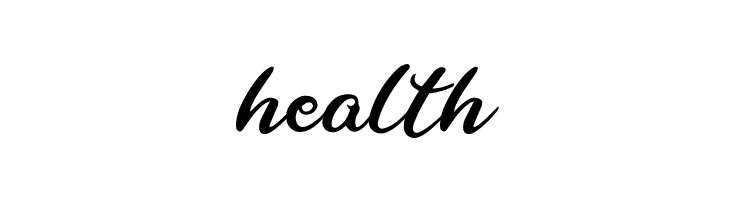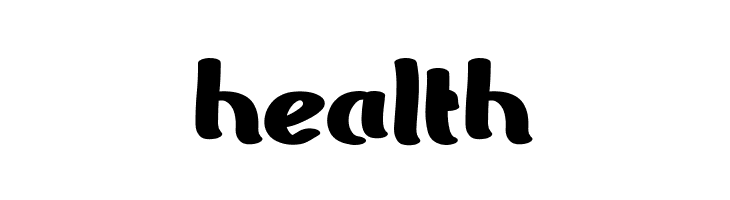
A graceful and elegant script font with flowing, cursive characters.
An elegant, italic script font with flowing, cursive characters.
A bold, cursive script font with elegant curves and smooth transitions.
A bold, outlined font with a playful, retro style.
A bold, cursive script font with dynamic, flowing strokes.
A bold, playful font with flowing, decorative elements.
A bold, dynamic script font with flowing, connected letterforms.
A dynamic, fluid handwritten font with elegant, slanted letterforms.